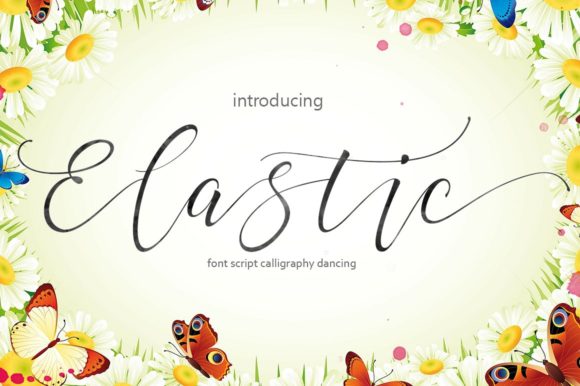
The Elastic Font: A Stunning Script Font for Elevating Your Designs
I’ll never forget the moment I stumbled upon the Elastic font. I was working on a wedding invitation project, and my client had a very specific vision: elegant, charming, and sophisticated. I had been searching for the perfect font for hours, but nothing seemed quite right. That was when I discovered Elastic. Its beautiful, flowing lines and gorgeous glyphs immediately caught my eye, and I knew I had found the one. In this article, I’ll share my experience with Elastic, its features, and how to make the most of this stunning script font.
An Honest Review of Elastic Font
- ✨ Elegant and charming design that’s perfect for wedding designs, invitations, and more
- ✅ PUA encoded for easy access to amazing glyphs and swashes
- ✅ Features a wealth of special features, including alternate glyphs and ligatures
- ✅ Suitable for a wide range of design projects, from branding to logos and labels
While Elastic is an amazing font, there are a few things to keep in mind:
- ⚠️ Some users may find the varying baseline a bit challenging to work with, especially for beginners
- 🤔 The font’s elegance may not be suitable for very casual or playful designs
A Practical Guide to Using Elastic Font
The Story Behind Elastic Font
Elastic was designed by a team of typographers who wanted to create a font that would evoke the feeling of classic calligraphy. They drew inspiration from traditional calligraphy and infused it with modern elements to create a unique and elegant font. The result is a stunning script font that’s perfect for elevating your designs.
Q: Is Elastic suitable for body text?
A: While Elastic is an elegant font, it’s primarily designed for headings and titles. For body text, you may want to choose a more readable font.